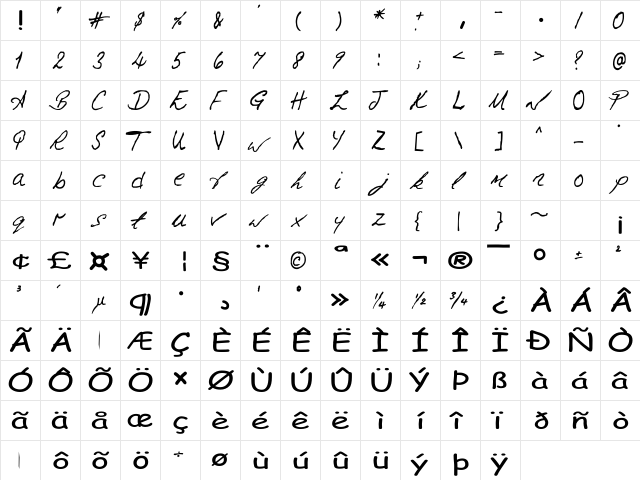
QESteveColes Regular
Design Context for QESteveColes Typeface
QESteveColes is a composed and adaptable typeface that performs quietly and consistently across a wide range of design contexts.